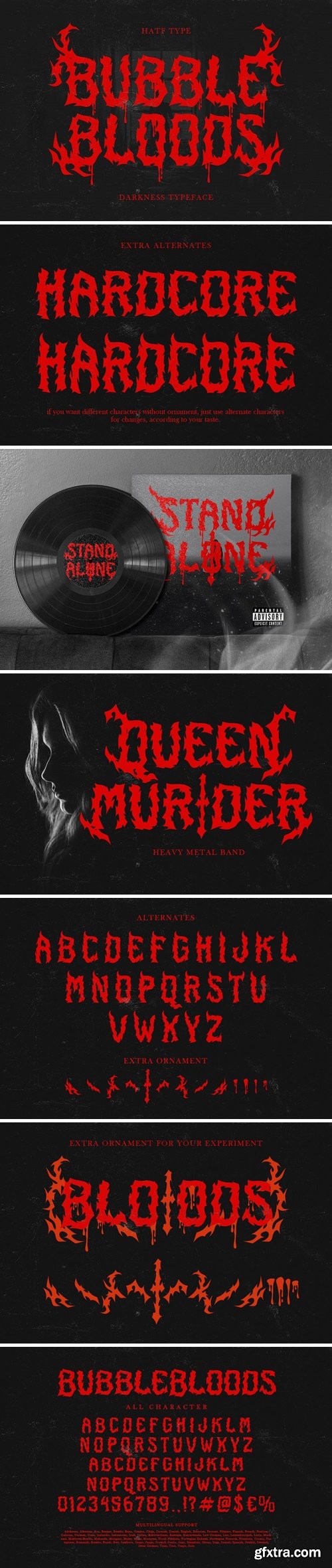
泡泡血液字体
This is a blackletter display font with additional ornaments inspired by gothic and horror metal styles because its shape is very unique and very suitable for any project you will use with this theme.